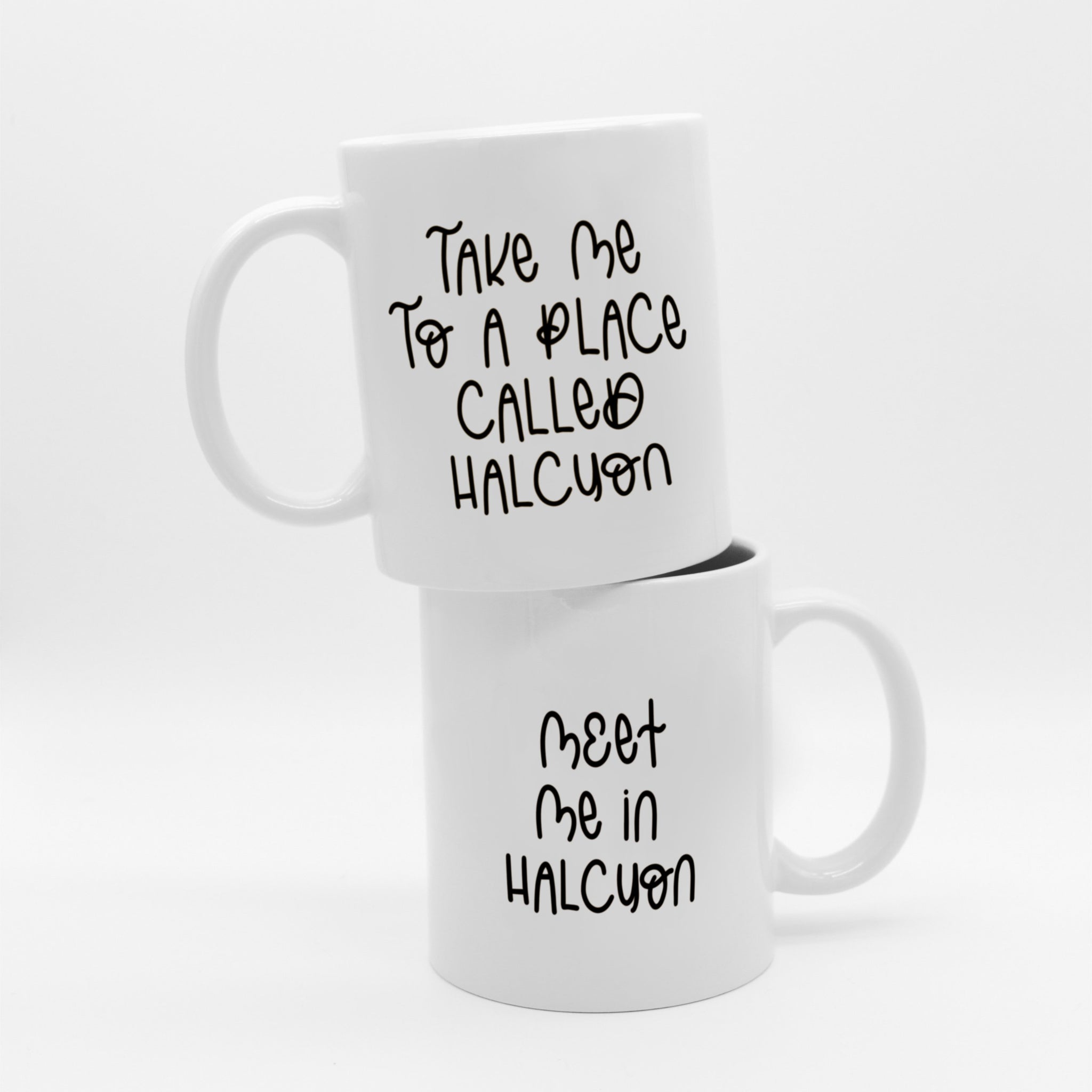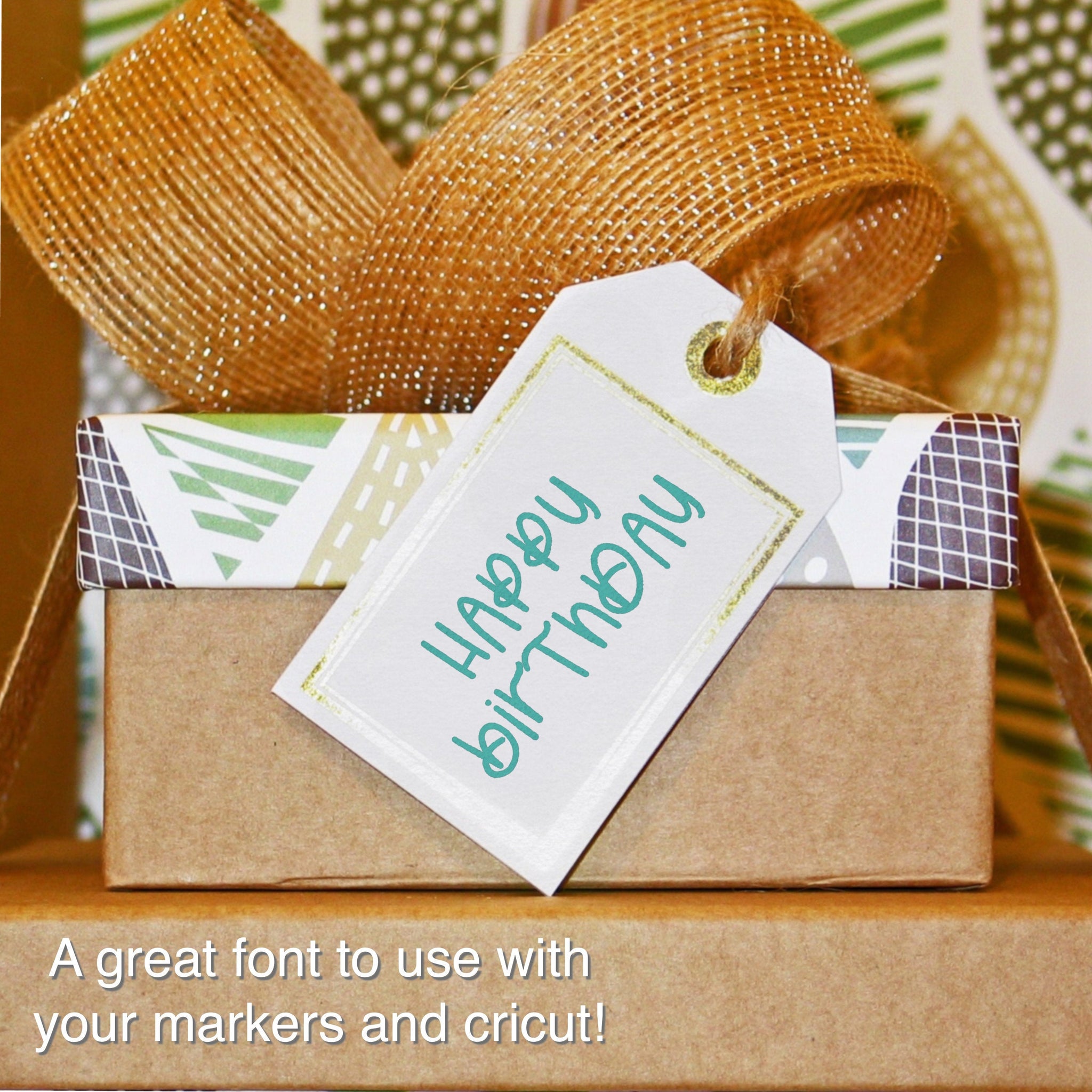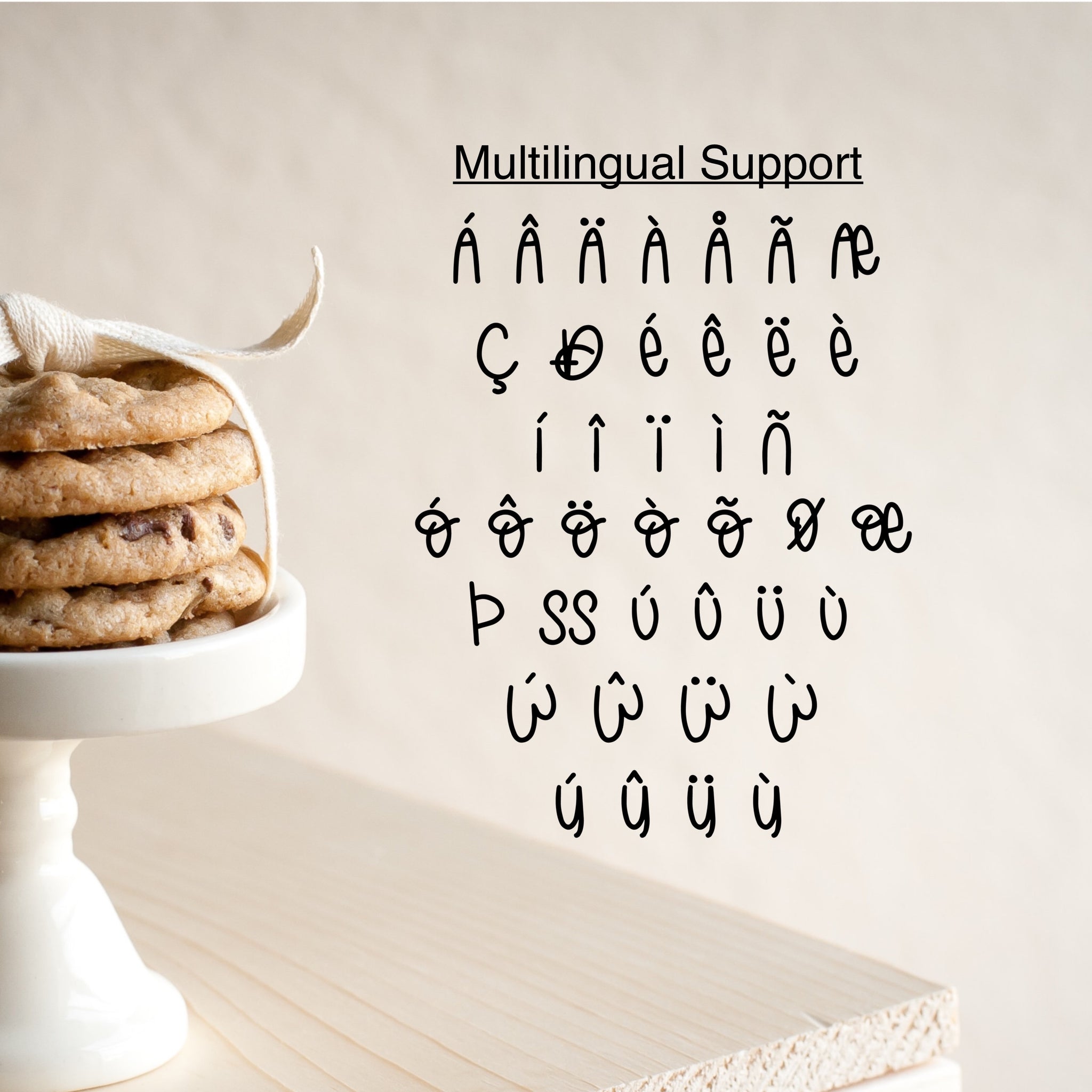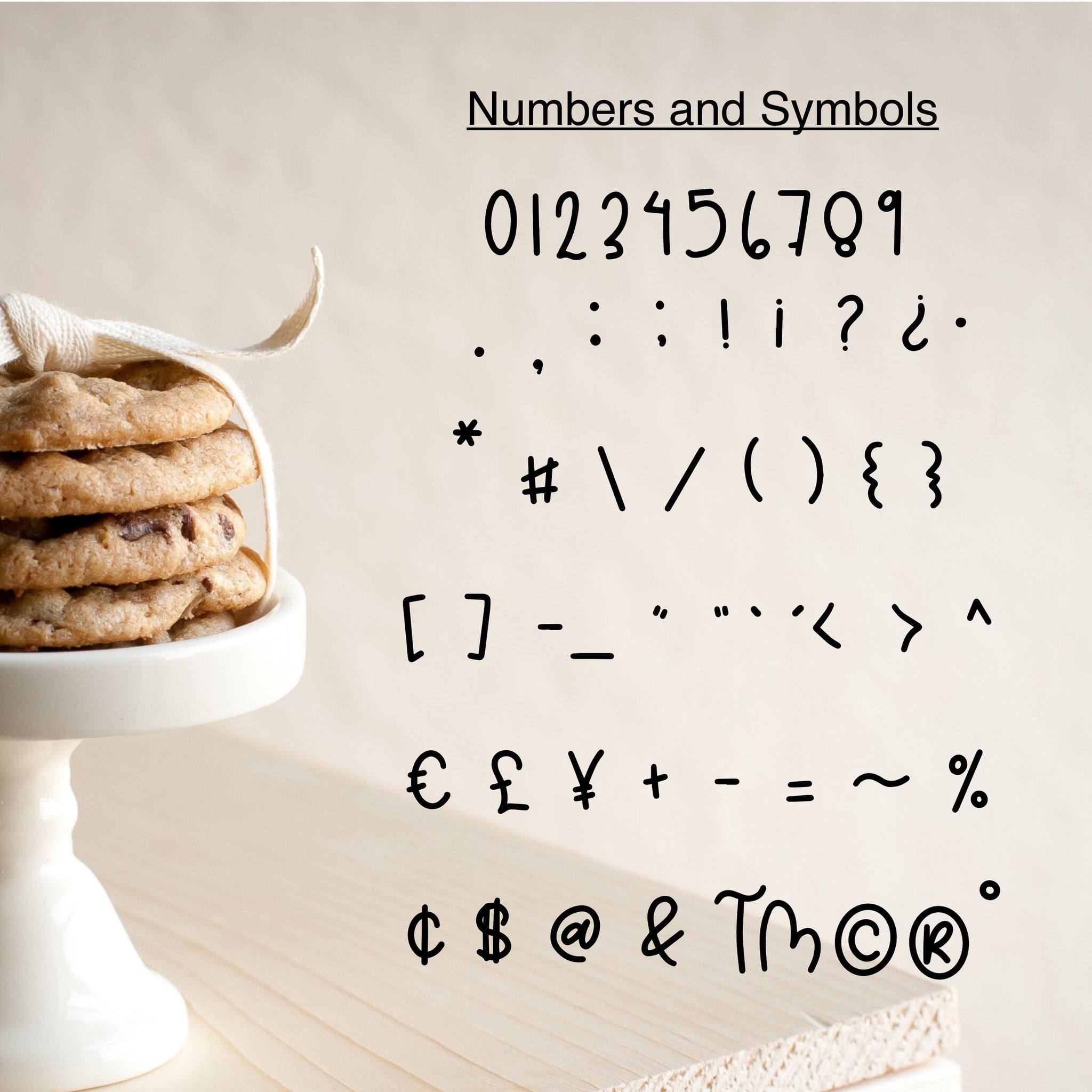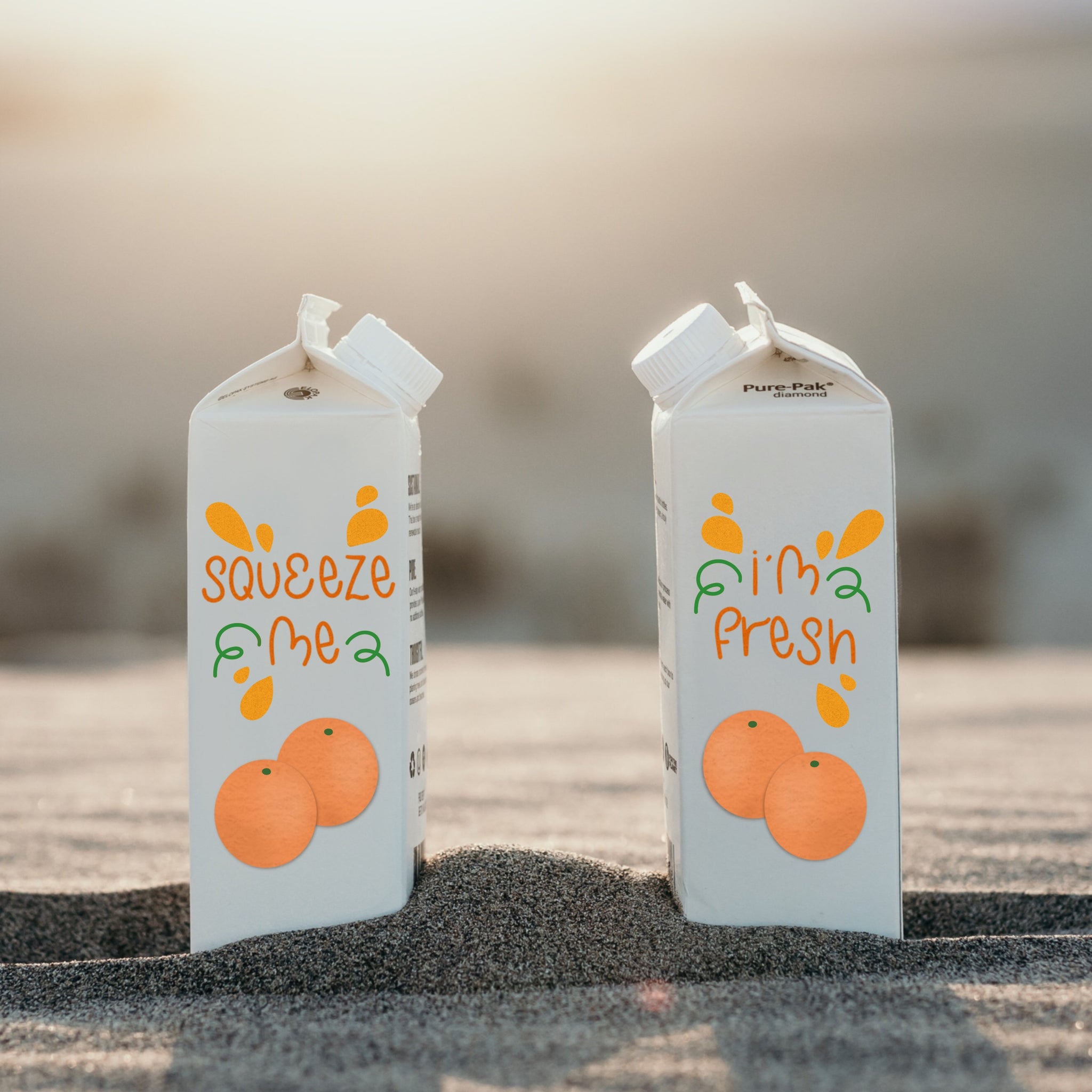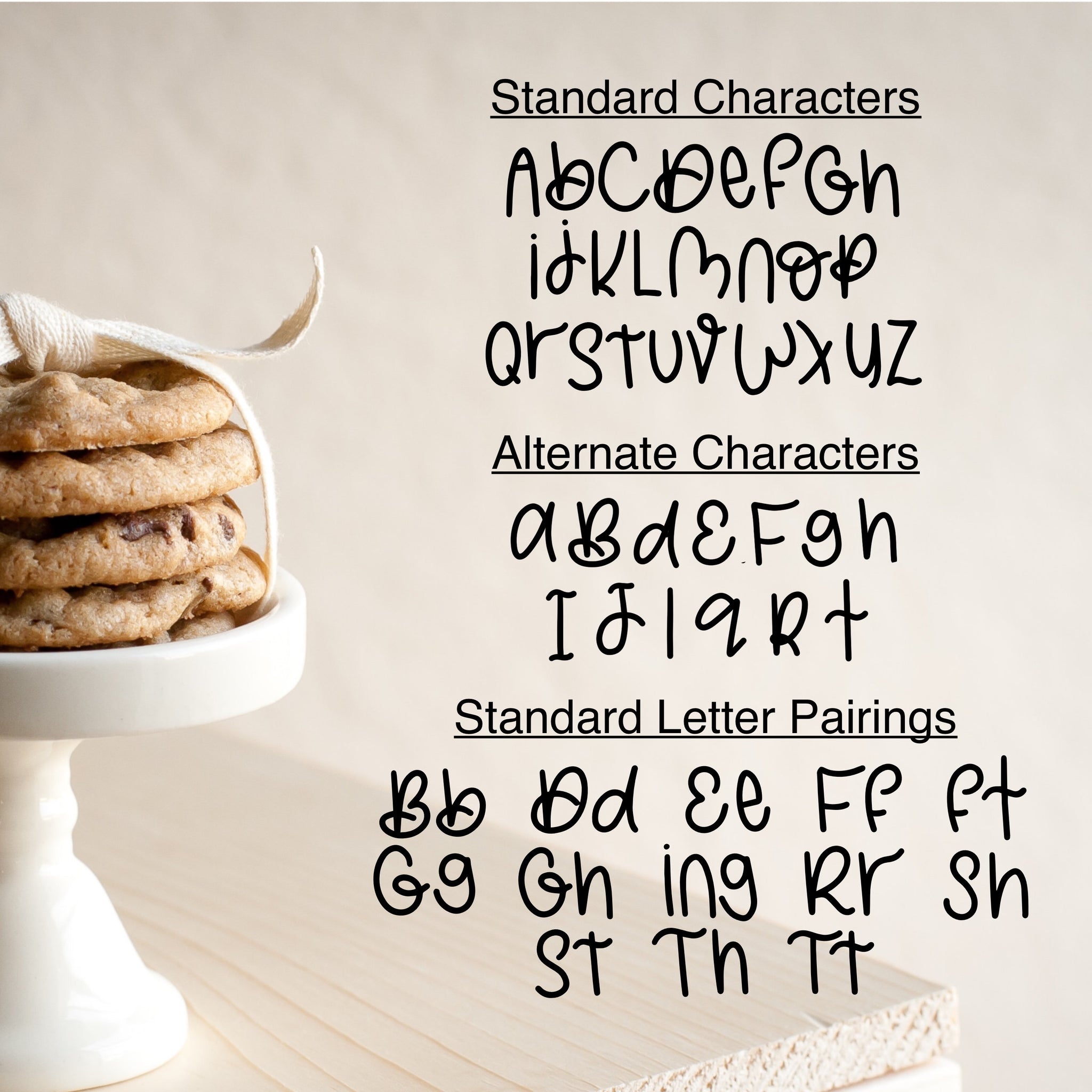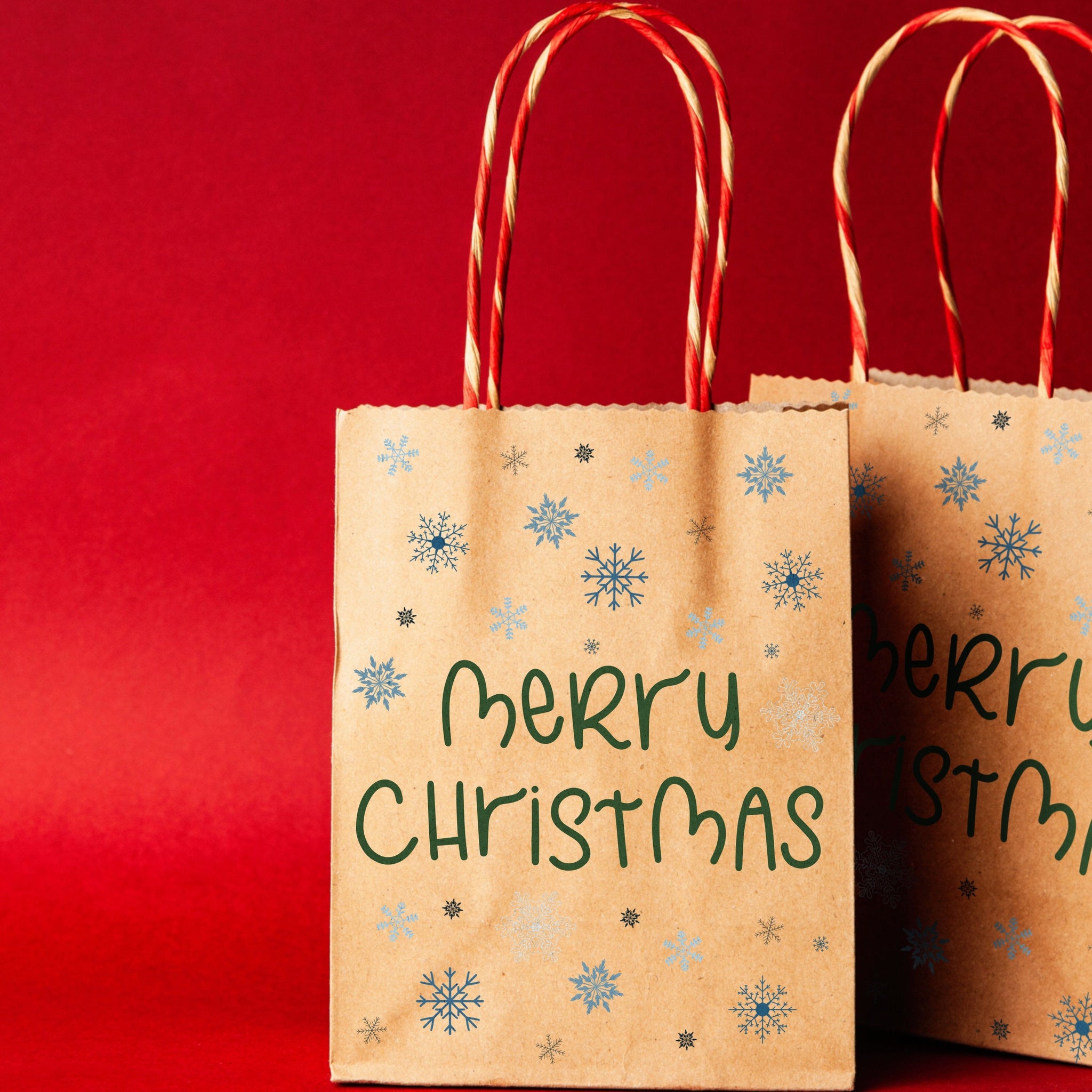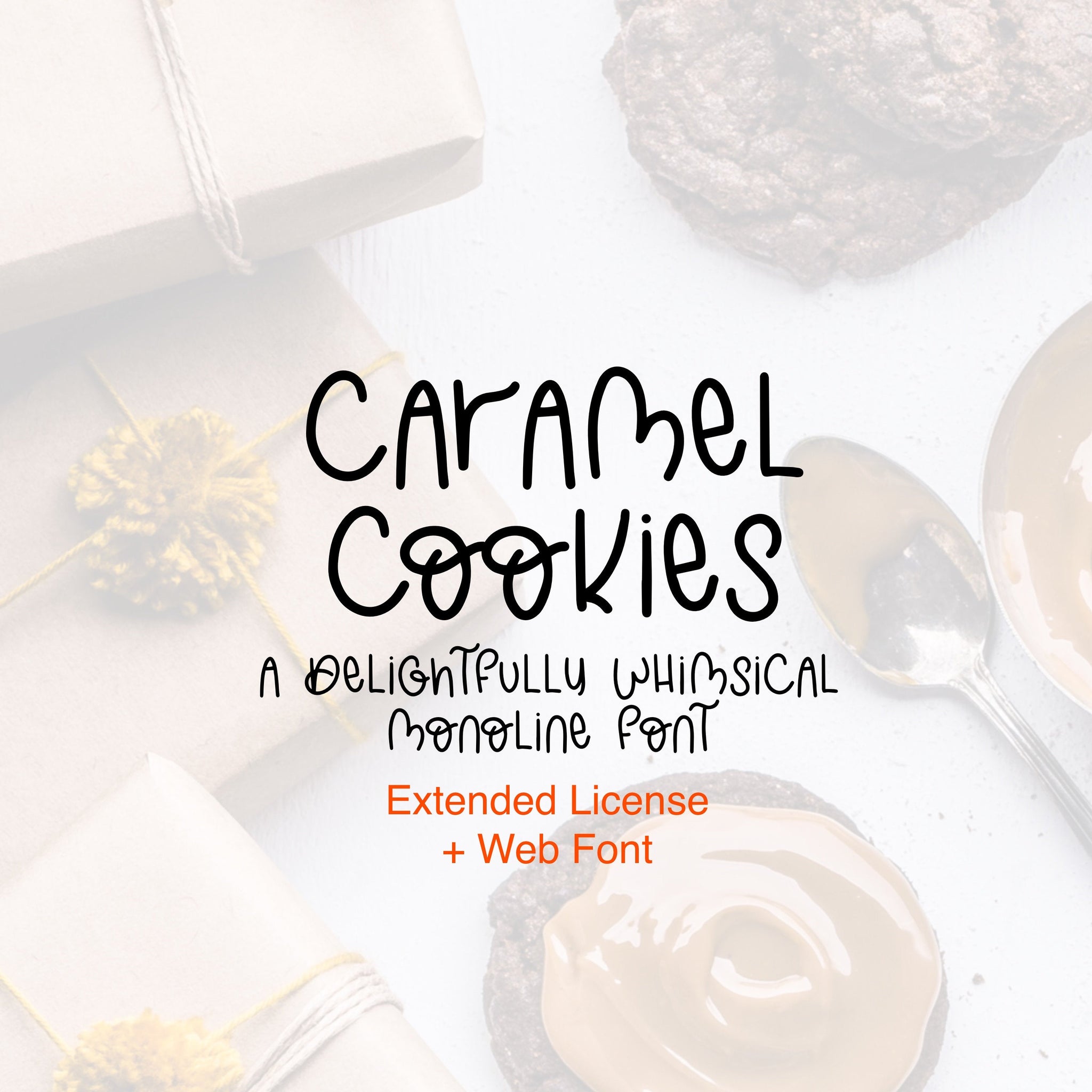
šŸ”…Caramel Cookies will be great for when you need a fun and unique new font! It will be a great font to use with your markers on your Cricut, your business branding, vinyl, and so much more!
šŸŽ‰Caramel Cookies contains bonus characters and unique letter pairings which are great for adding a different spin on the font. It can take on a whole new look depending on what letters you choose to put together. Simply access them through the Glyphs palettes in programs like Illustrator or InDesign. If you don't have access to programs that use .otf files, you'll still have access to all of the standard and international characters. Caramel Cookies contains multilingual support with accented characters for international Western European users.